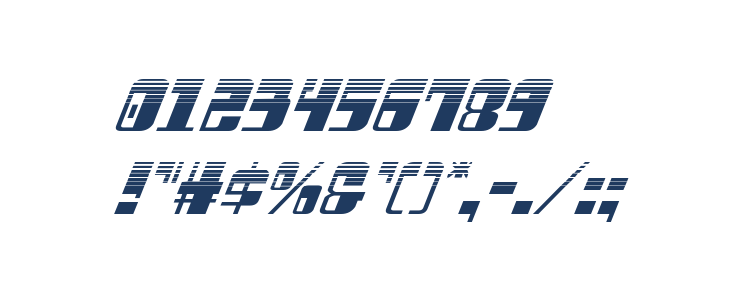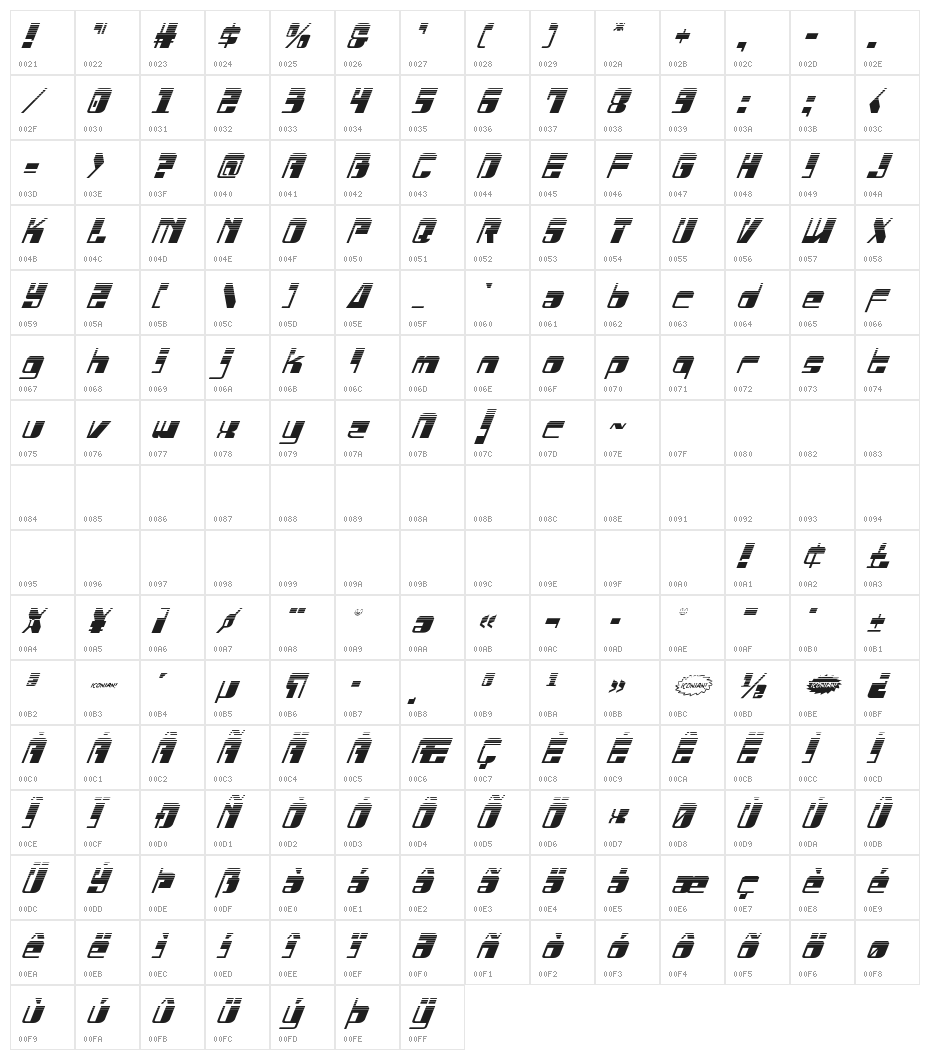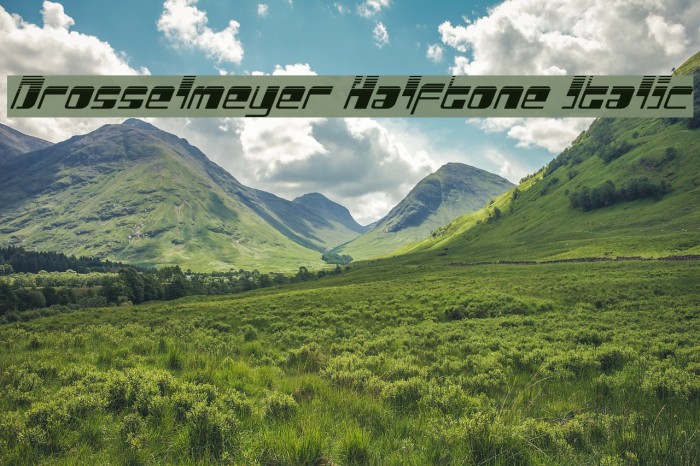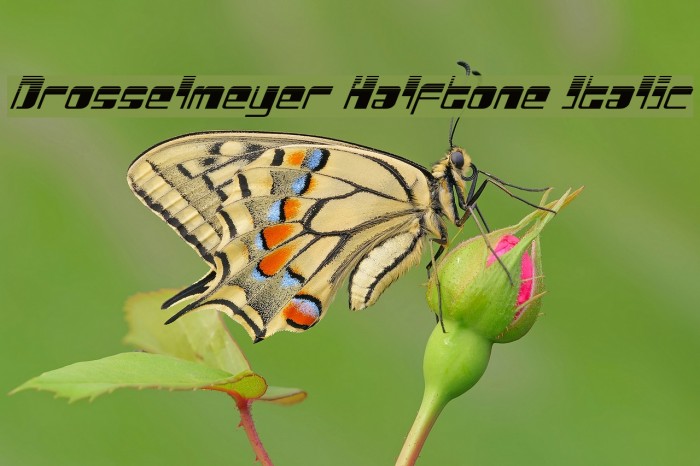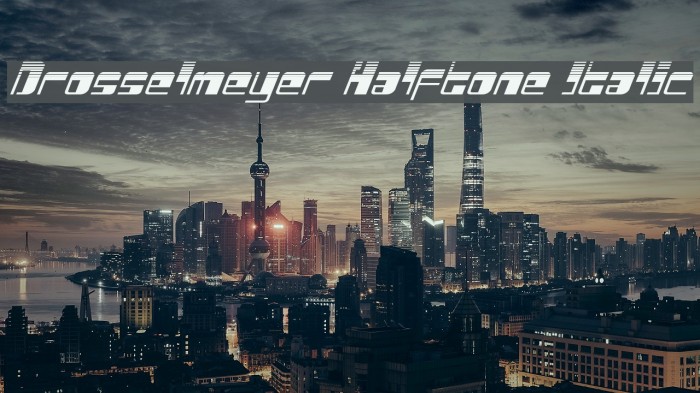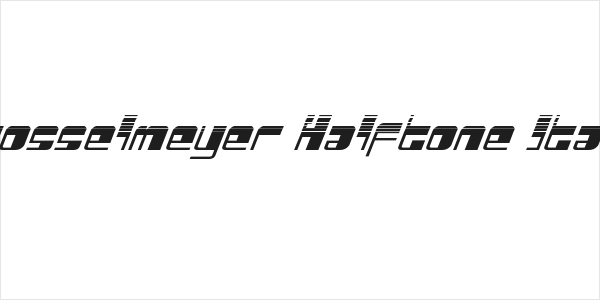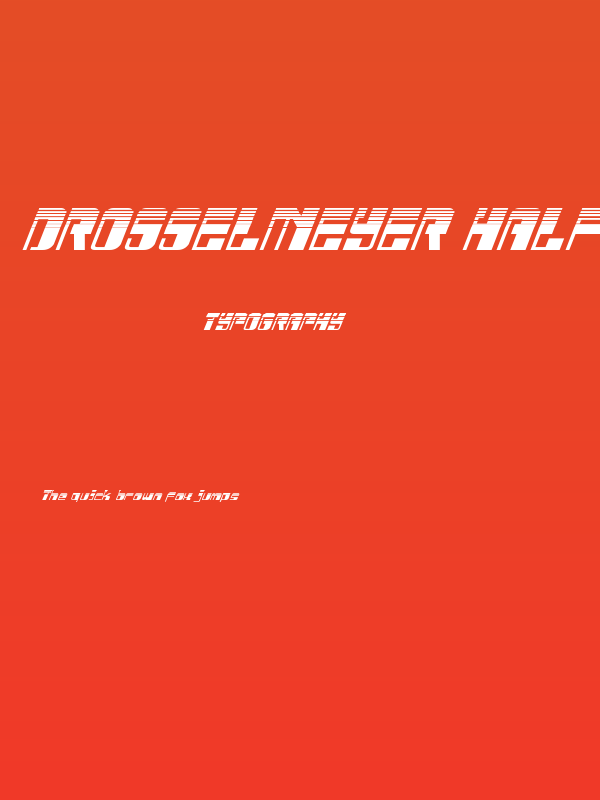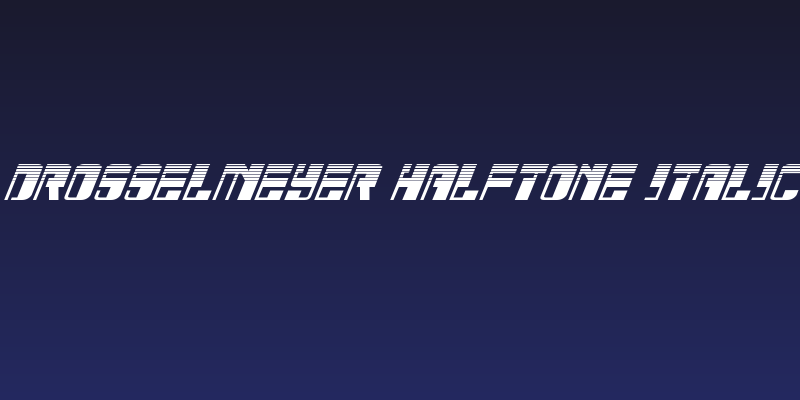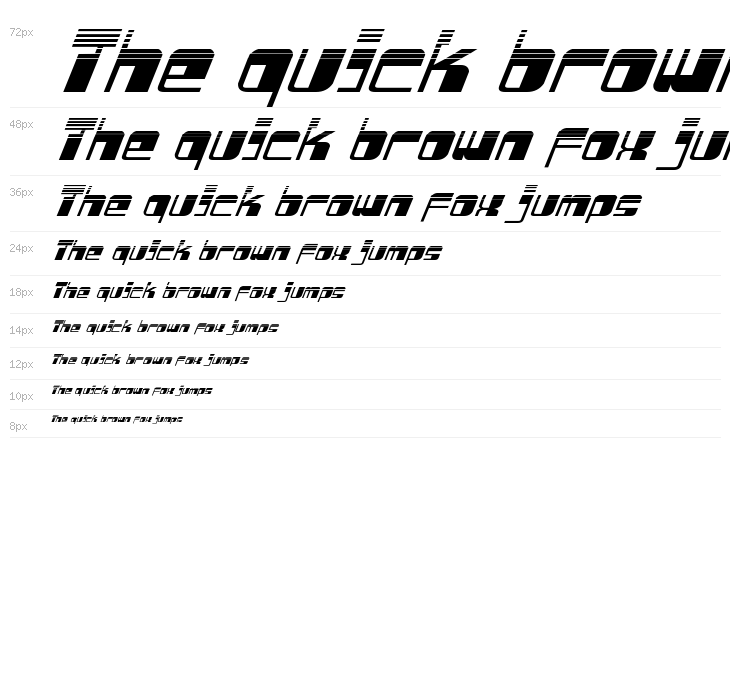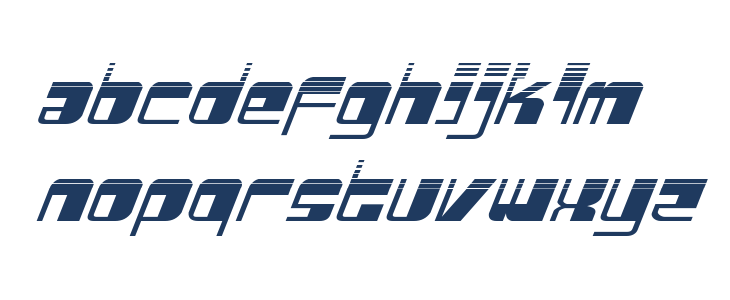
Drosselmeyer Halftone Italic Font
Drosselmeyer Halftone Italic Description
This font features a dynamic and futuristic design with a halftone effect that gives it a unique, digital appearance. The characters are italicized, adding a sense of motion and speed. The uppercase and lowercase letters maintain a consistent style, with sharp angles and a bold presence. The numbers and special characters follow the same aesthetic, ensuring a cohesive look across all glyphs. The halftone pattern within each character adds depth and texture, making it ideal for eye-catching designs.
| Overall Style | Futuristic, Dynamic |
| Proposed Projects | Ideal for sci-fi themed projects, modern branding, digital artwork, and dynamic posters. |